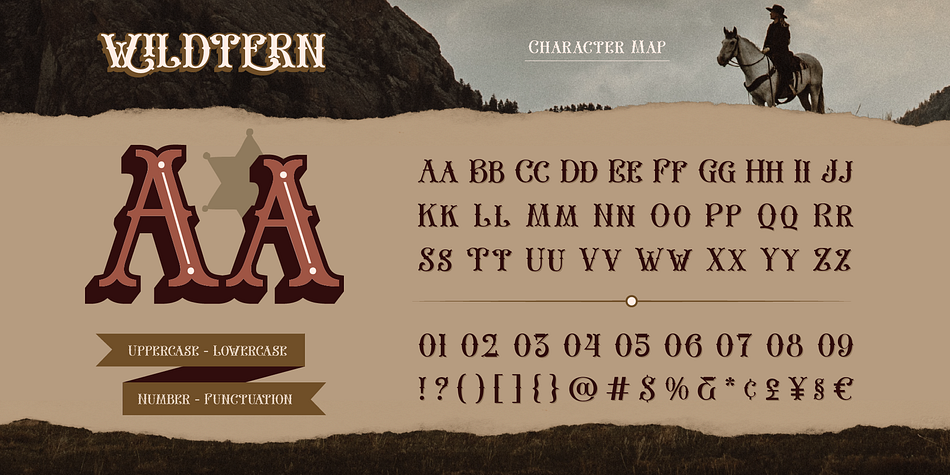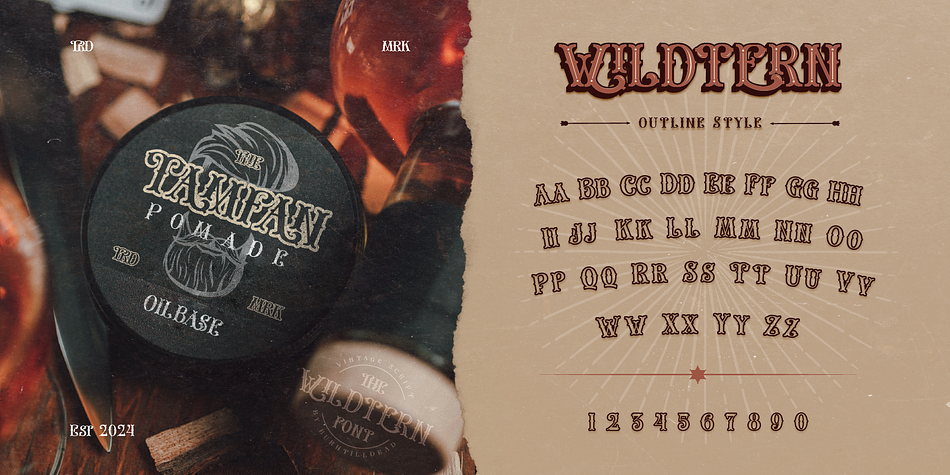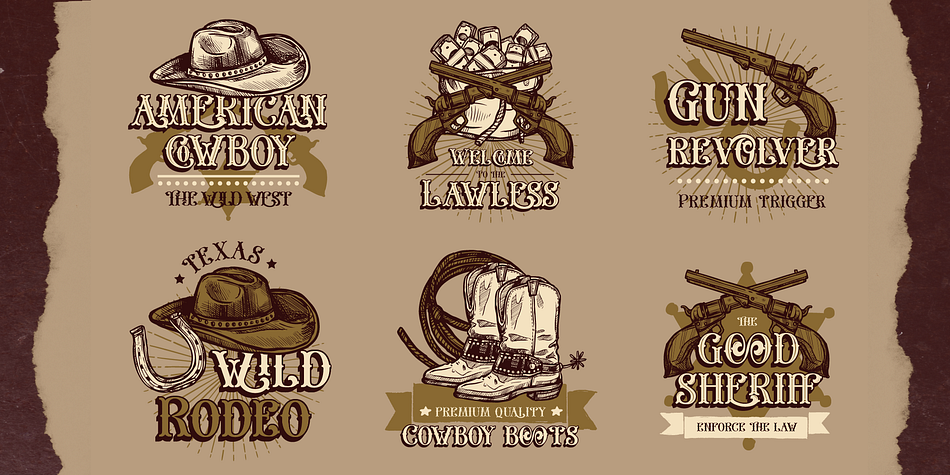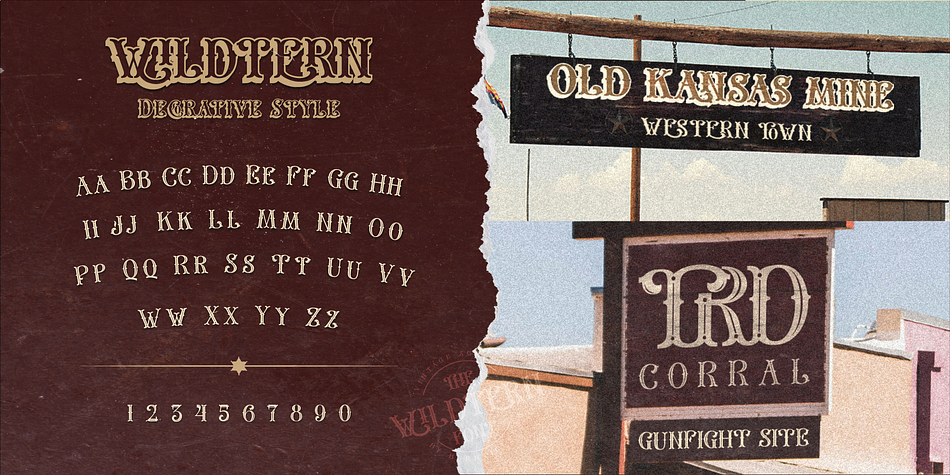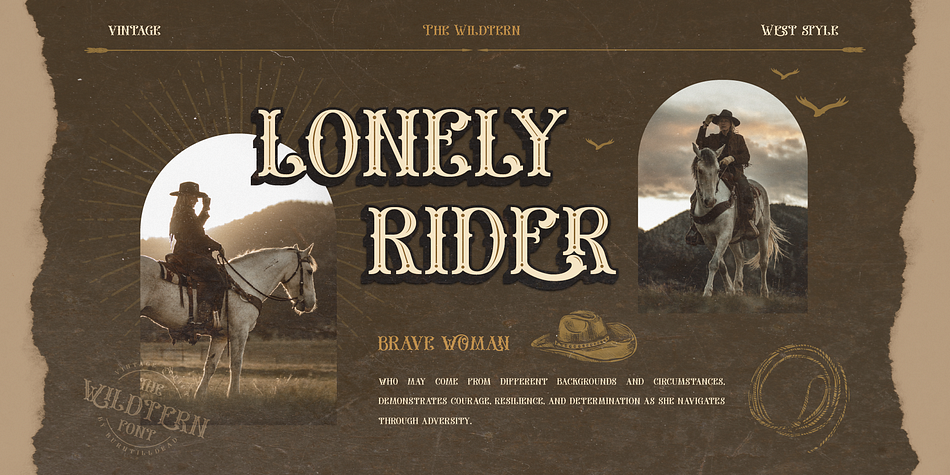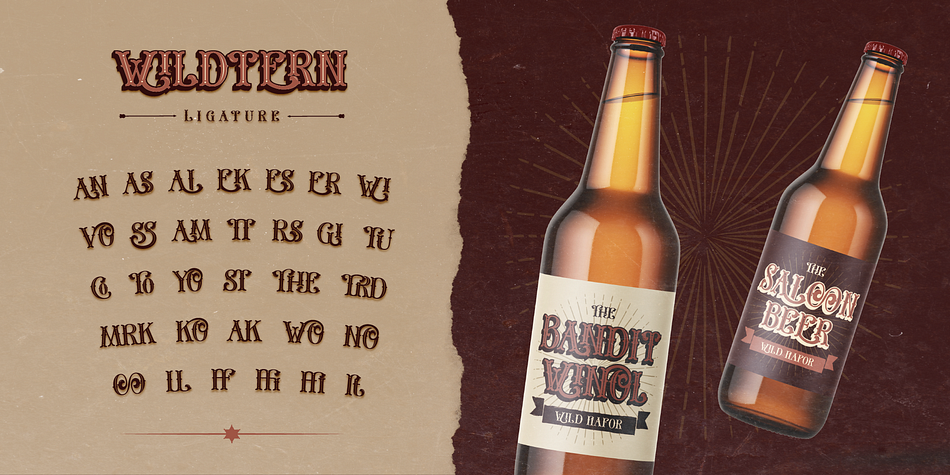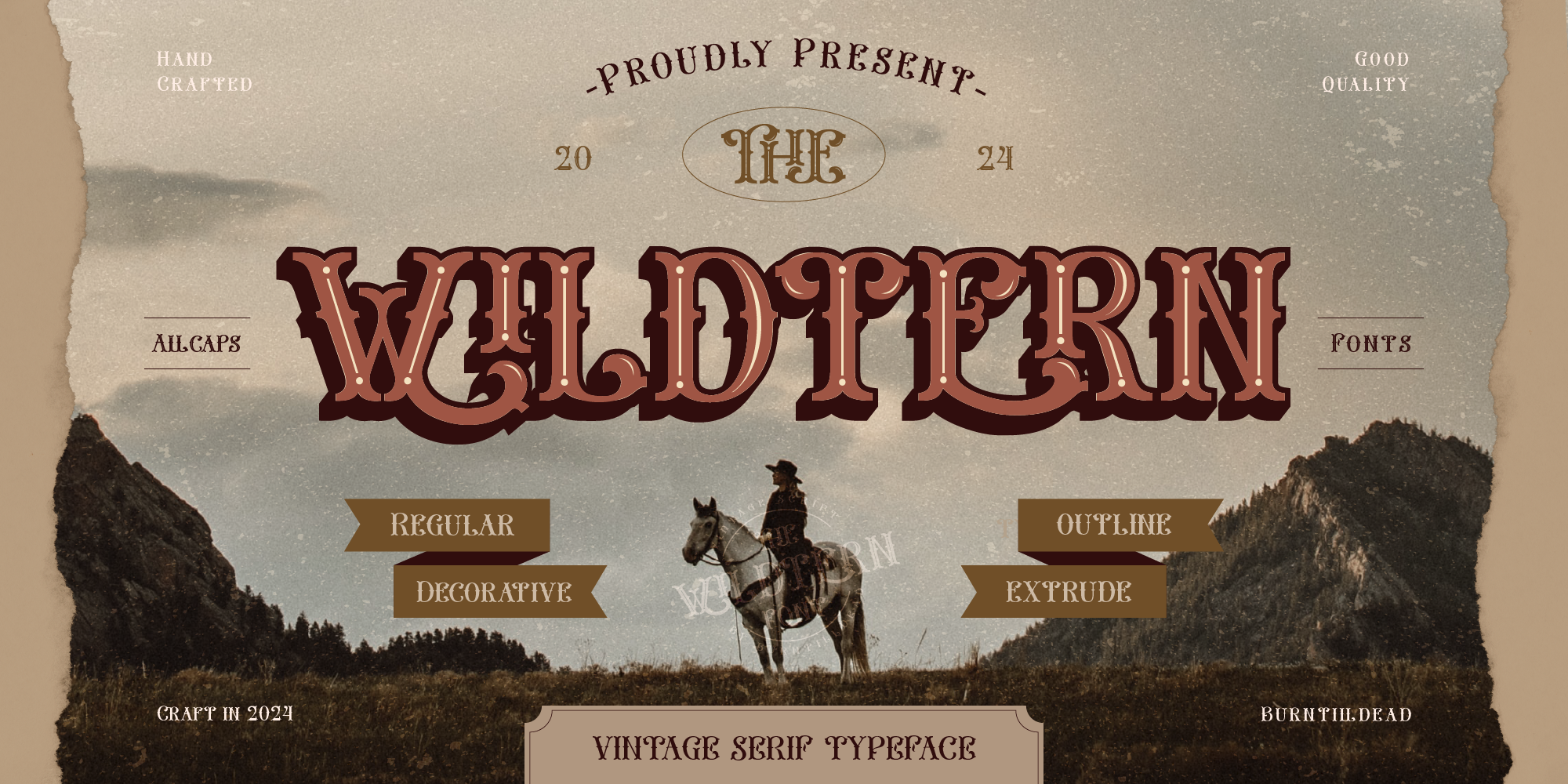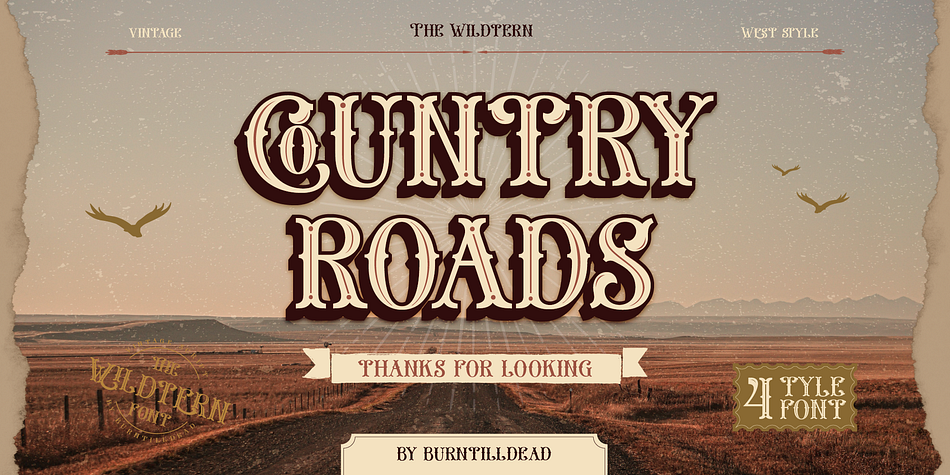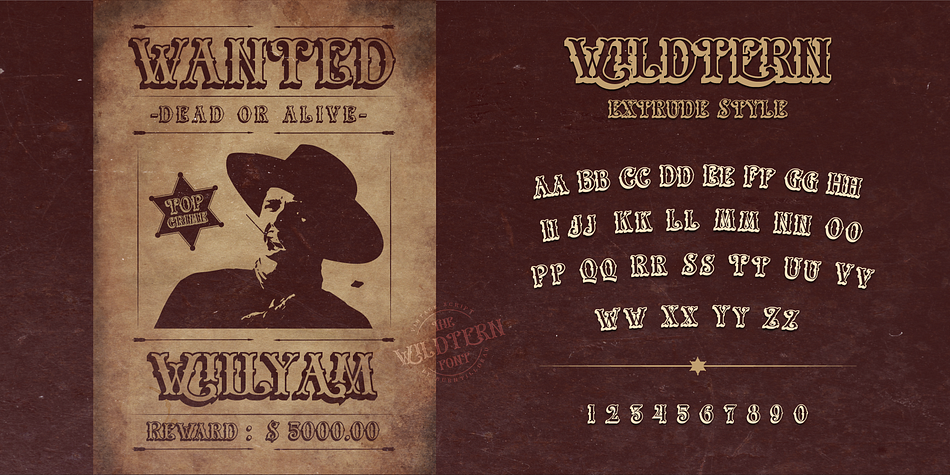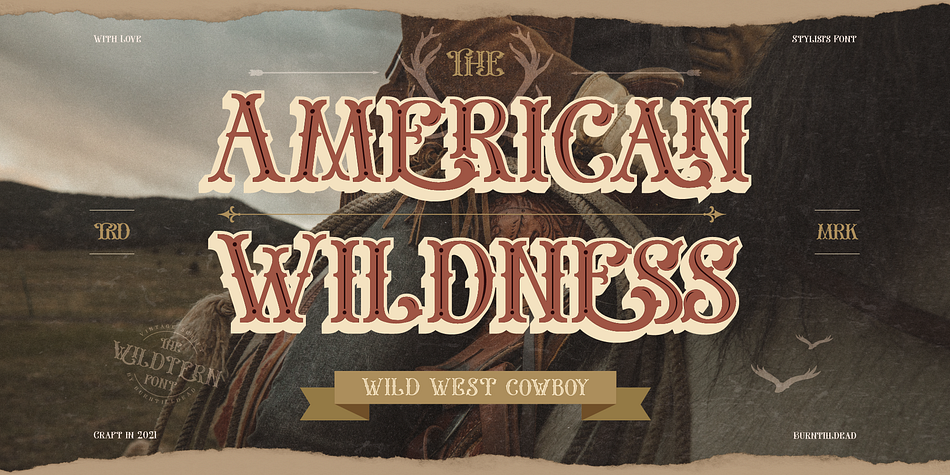
The Wildtern
Designed by Eric Kurniawan, The Wildtern is a western font family. This typeface has four styles and was published by Burntilldead.
Howdy Big Guns! Introducing The Wildtern, the timeless of western charm! This font shows the classic of the old west era, also the addition of decorative ornaments that make your design look more old west and ace high! Rooted in the typography in early 17thcentury, this font bring a touch of classic old west era to any design, whether it’s a logotype, product tag, poster, marketing materials and etc. The spirit of the Wild West with the enduring allure of Wildtern font! Don’t forget to listen country music while using this font, Yee-haw!
Features: A-Z character set (uppercase and lowercase), Numerals & punctuations, Ligatures, Alternate characters, , Character maps, Multilingual
Style Western
Designer Eric Kurniawan